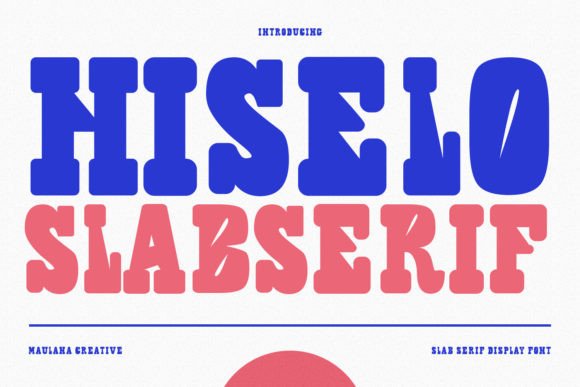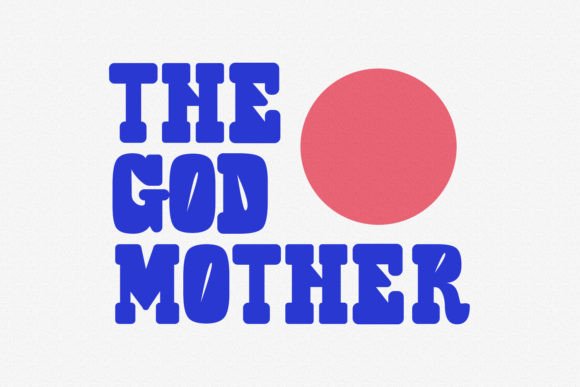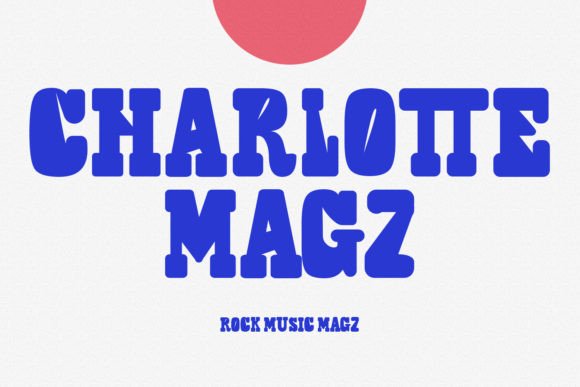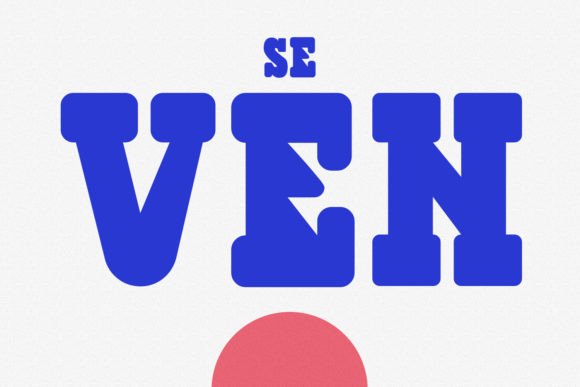
About Hiselo Font
Hiselo is a slab serif display font with medium stroke, fun character with a bit of ligatures to give you an extra creative work. Hiselo font support multilingual more than 100+ language. This font is good for logo design, Social media, Movie Titles, Books Titles, a short text even a long text letter and good for your secondary text font with script or serif. Make a stunning work with Hiselo font.